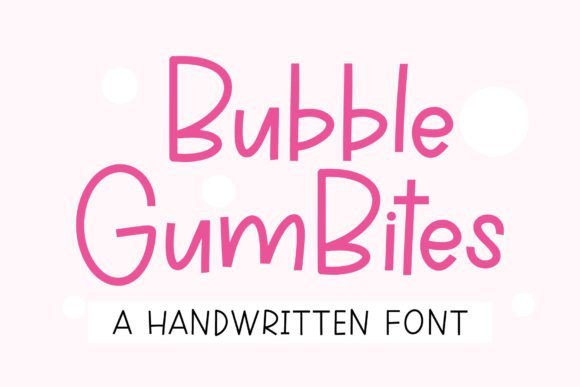
One tool that can help take your designs to the next level is the Bubble Gum Bites Font, a charming, handwritten font with a romantic touch. Masterfully designed to add a personal touch to your projects, this font has the potential to elevate each of your creative ideas to new heights.
Whether you’re working on a wedding invitation, a blog post, or a social media campaign, the Bubble Gum Bites Font is a valuable addition to any designer’s toolkit. Its unique, authentic style is sure to capture attention and leave a lasting impression.
Bubble Gum Bites Font Key Features
- Unique Characteristics: Hand-drawn, playful, and whimsical design with a mix of bold and cursive elements
Bubble Gum Bites Font Review
First off, I want to say that the Bubble Gum Bites font is a fun and playful addition to any design project. ✨ The rounded shapes and whimsical feel make it perfect for kids’ products, party invitations, or any other design where you want to inject a sense of joy and excitement.
One of the things that really stands out about this font is its versatility. ✨ It comes in a range of weights, from light to bold, which makes it easy to use in different contexts. The font also has a unique set of ligatures and swashes that can add an extra layer of personality to your designs.
While the Bubble Gum Bites font is a lot of fun to use, there are a few limitations to be aware of. ⚠️ For one thing, the font is not suitable for body text. It’s just too playful and distracting to use for large blocks of text. Additionally, the font may not be the best choice for designs where you need a lot of precision and accuracy, as the rounded shapes can make it difficult to read.
Overall, I think the Bubble Gum Bites font is a great addition to any designer’s toolkit. While it may not be suitable for every project, it’s perfect for designs where you want to add a little bit of whimsy and fun. With its range of weights and unique ligatures, it’s a great choice for designers who want to add some personality to their work.
- Playful, rounded shapes
- Range of weights (light to bold)
- Unique ligatures and swashes
- Not suitable for body text
- May not be suitable for precise designs
The Bubble Gum Bites Font is perfect for creating playful and eye-catching designs. It’s commonly used in:
- Social media graphics and ads
For optimal results, use the font in conjunction with bright and bold colors to create a fun and energetic vibe.